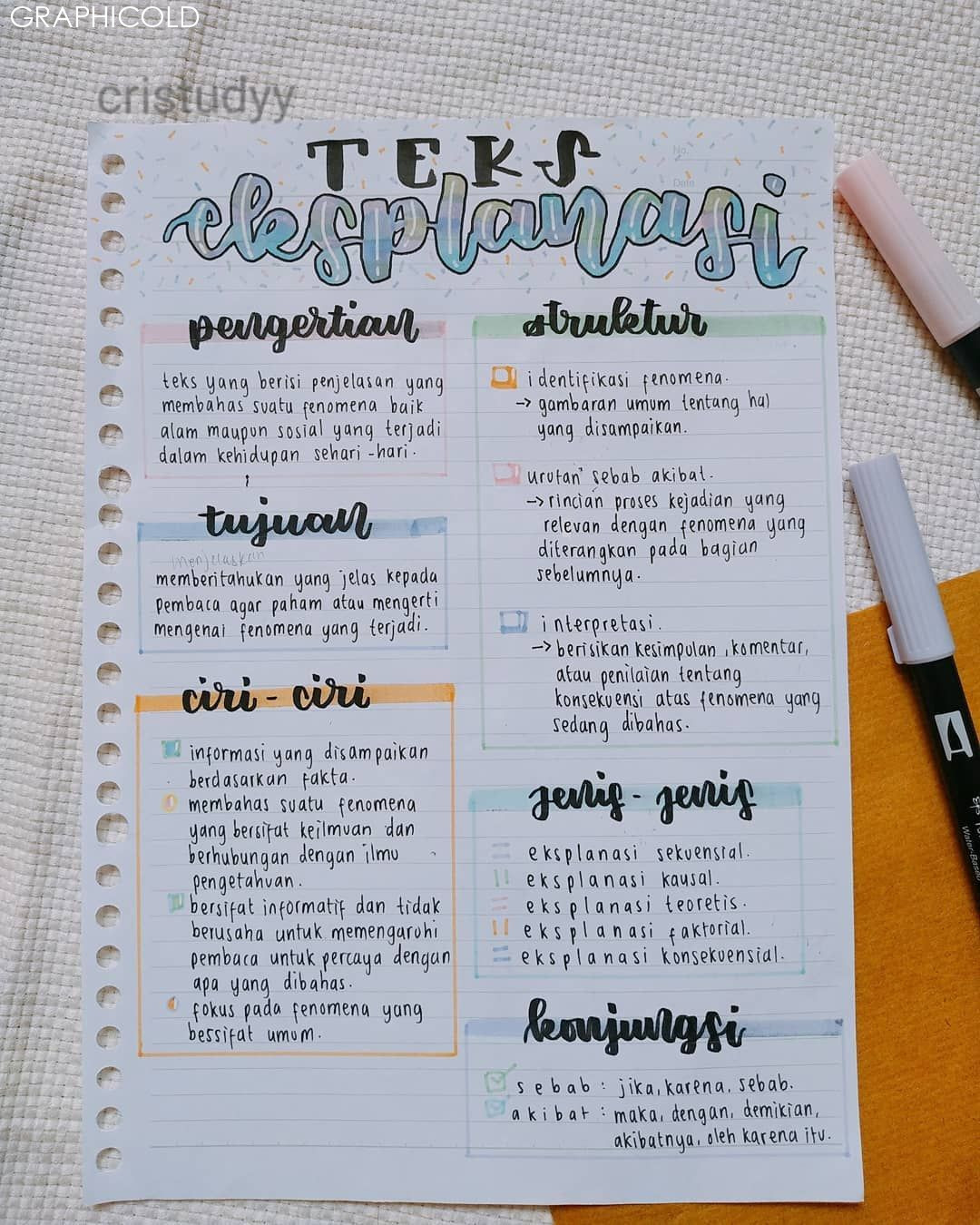
Aesthetic Text: Adding Beauty to Your Messages
In this digital era, communication plays a vital role in our daily lives. Texting has become one of the most common forms of communication, and with the rise of social media platforms, expressing oneself through text has become even more important. One trend that has gained popularity in recent years is the use of aesthetic text.
Aesthetic text, also known as vaporwave or aesthetic fonts, refers to a unique and visually appealing way of presenting text. It involves using different fonts, symbols, and characters to create a visually pleasing and artistic look. This trend has become especially popular among young people and those who want to add a touch of creativity to their messages.
Using aesthetic text allows individuals to express their personality and style through their text messages. It adds a unique and artistic element to their conversations, making them stand out among the sea of plain texts. With a variety of different fonts and symbols to choose from, users can create their own personal aesthetic and make their messages truly their own.
Moreover, aesthetic text can also evoke certain emotions and create a particular atmosphere within a conversation. For example, using cursive fonts or elegant symbols can add a touch of sophistication and elegance to a message. On the other hand, using bold and colorful fonts can convey excitement and energy. By carefully selecting the right aesthetic text, individuals can enhance the impact and meaning of their messages.
Furthermore, aesthetic text can be a form of self-expression and a way to connect with others who share similar interests. For instance, using symbols related to a particular subculture or community can help individuals identify with like-minded individuals and foster a sense of belonging.
However, it is important to note that while aesthetic text can be a fun and creative way to express oneself, it should be used in moderation and with consideration. Overusing aesthetic text or using it in inappropriate contexts may lead to confusion or misinterpretation. It is crucial to strike a balance between aesthetics and clarity to ensure effective communication.
In conclusion, aesthetic text has become a popular trend in digital communication. It allows individuals to express their personality, add creativity to their messages, and evoke specific emotions. However, it is essential to use aesthetic text sparingly and appropriately to ensure effective communication. So, why not add a touch of beauty to your messages and explore the world of aesthetic text?